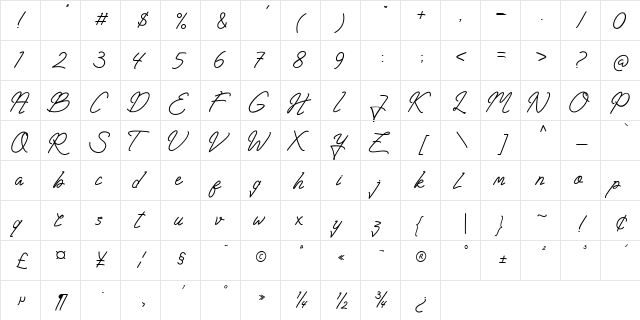
Huntsel Script Reguler
| Foundry | Wallby Hand |
| Designer | Wallby Hand |
Design Context for Huntsel Script Typeface
Huntsel Script flows with the natural rhythm of handwritten lettering, making it ideal for designs that call for warmth and personal expression.